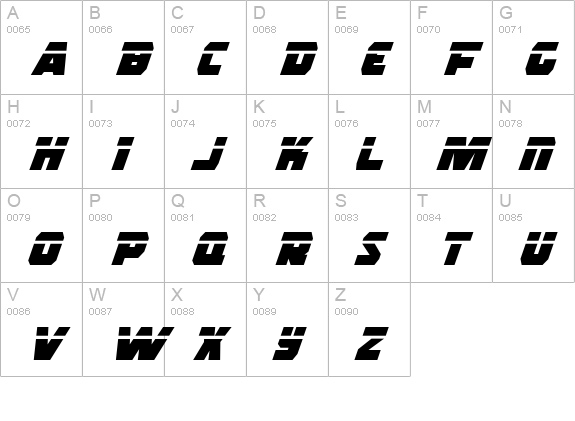
Rogue Hero Laser Italic is a distinctive, italic variant in the Rogue typeface family \xE2\x80\x94 well suited to design and typography projects.
Introducing Rogue Hero Laser Italic font, a mesmerizing typeface that exudes a sense of adventure and boldness. With its sleek lines and sharp angles, this font adds a touch of edginess to any design project. The Rogue Hero Laser Italic font is perfect for creating eye-catching headlines, striking logos, and dynamic posters. What makes this font even more appealing is that it is available for free download at FontsMarket.com. So, whether you're a designer looking to spice up your next project or a creative individual seeking a unique font for personal use, Rogue Hero Laser Italic is sure to impress. Download it today and unleash your inner rogue hero!